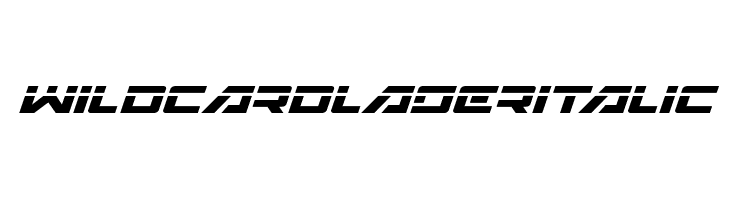
A bold, angular, and futuristic font with a condensed style.
A futuristic, angular italic font with bold strokes and geometric shapes.
A bold, geometric font with sharp angles and a futuristic style.
A bold, angular font with a modern, geometric design.
A bold, italicized font with sharp, angular edges and a futuristic look.
A bold, angular, and italicized font with a futuristic and aggressive style.
A bold, angular font with a futuristic and dynamic style.